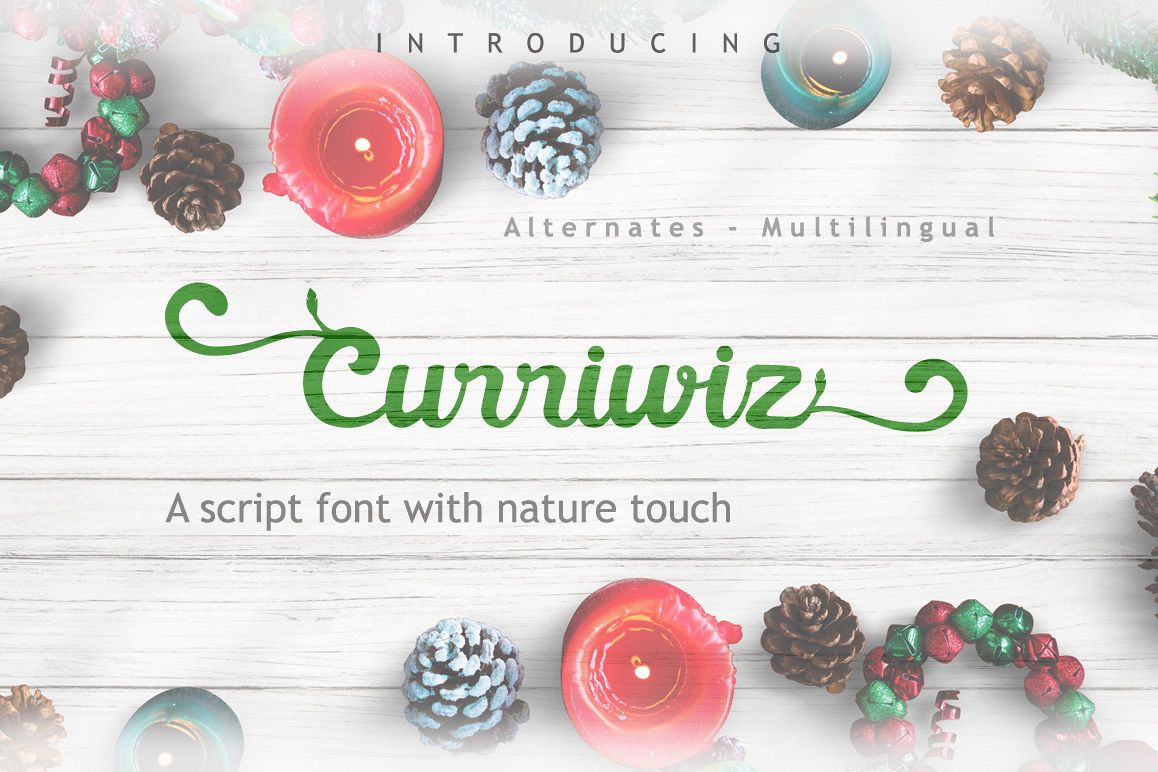
Curriwiz Font
Curriwiz is a beautiful script font with nature touch design.Perfect for logos, wedding invites, branding, quotes, product packaging, headers, and more.
• Uppercase A-Z
• Lowercase a-z
• Numbers 0-9
• Accents
• Punctuation
• Uppercase Alternates
• Lowercase Alternates